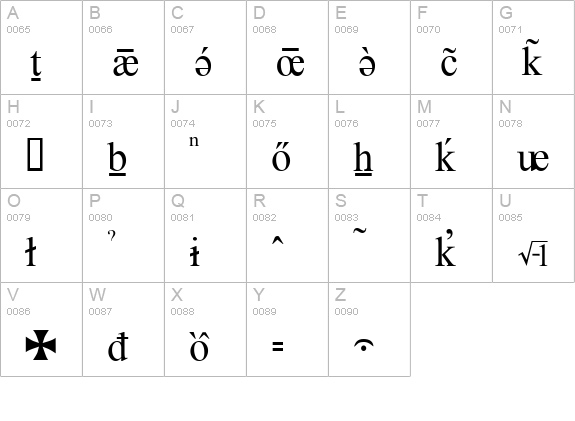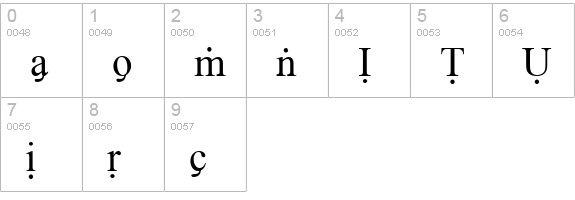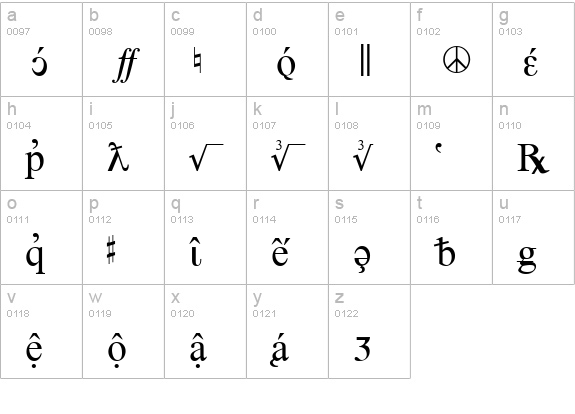
Info26 Font Details
Introducing Info26 font, a versatile and modern typeface that combines elegance with functionality. This font is perfect for any design project that requires a sleek and professional touch. Whether you're designing a logo, creating a website, or crafting a marketing campaign, Info26 font is sure to elevate your work to the next level. With its clean lines and balanced letterforms, Info26 font exudes a sense of confidence and sophistication. Its legibility and readability make it suitable for both large headlines and body text, ensuring that your message is conveyed with clarity and impact. The carefully crafted details of this font will captivate your audience and leave a lasting impression. One of the best features of Info26 font is that it is completely free to use. That's right, you can freely download this font at FontsMarket.com. This means that you can enhance your designs without breaking the bank. Whether you're a professional designer or an aspiring creative, Info26 font is accessible to all, allowing you to bring your vision to life without any limitations. Info26 font is available in a variety of weights and styles, giving you the flexibility to create unique and personalized designs. From bold and impactful headlines to subtle and elegant body text, this font offers endless possibilities. Its versatility ensures that it can be used across a wide range of applications, from print to digital, making it a valuable addition to any designer's toolkit. In addition to its aesthetic appeal, Info26 font is also highly functional. Its well-designed characters and kerning pairs ensure that your text appears harmonious and visually pleasing. The attention to detail in the spacing and proportions of this font contribute to its overall polished look, making it a reliable choice for any design project. So why wait? Download Info26 font today from FontsMarket.com and start incorporating this stunning typeface into your designs. With its sleek and modern aesthetic, its versatility, and the fact that it's free, Info26 font is a must-have for any designer looking to make a statement. Elevate your work and leave a lasting impression with this exceptional font.